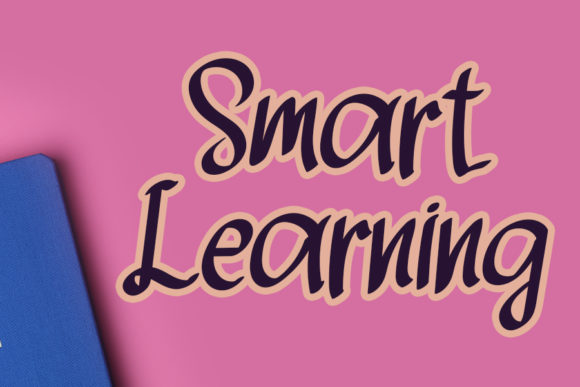
Introduction to Rellysha Font
Do you remember the moment when you stumbled upon the perfect font for your creative project? For many designers, that moment is what makes all the difference. It’s the spark that sets your imagination ablaze and propels you towards creating something truly special.
For those who are about to embark on a new design journey, we’re excited to introduce you to the stunning Rellysha Font. This casual and relaxed script font is sure to capture your heart with its beautiful and distinct style. Whether you’re crafting gorgeous wedding invitations, designing beautiful stationery art, or creating eye-catching social media posts, Rellysha Font is the perfect design resource to elevate your work.
What makes Rellysha Font so valuable to designers? Not only does it offer a high-quality design experience, but it also provides the flexibility to customize your projects with a transparent background, making it perfect for a variety of creative applications.
Key Features of Rellysha Font
- Unique, hand-drawn design perfect for creative projects requiring a touch of elegance and sophistication.
- Available in 5 font styles, including regular, italic, bold, bold italic, and outline, to suit various design needs.
- Perfect for designers seeking a high-quality, unique design resource for their creative projects, including branding, advertising, and packaging design.
Honest Review: Rellysha Font
As a designer, I’m always on the lookout for high-quality design resources to elevate my creative projects. The Rellysha Font caught my attention with its unique style and versatility. I was excited to dive in and see if it lived up to my expectations.
Here are some of the things that work well for me:
- ✨ The font is incredibly versatile, suitable for a wide range of creative projects, from branding to editorial design.
- ✨ The high-quality design ensures that the font looks crisp and clear, even when used on a transparent background.
- ⚠️ The font may not be suitable for use in small text sizes, as the letters can become difficult to read.
- ⚠️ The font’s unique style may not be to everyone’s taste, so it’s essential to use it thoughtfully in your design.
Overall, I’m impressed with the Rellysha Font. It’s a great addition to any designer’s toolkit, offering a unique and high-quality design resource for creative projects.
Rellysha Font Overview
Tips for Getting the Most Out of Rellysha Font
Use the Rellysha Font in conjunction with other design elements, such as images and graphics, to create a visually appealing design.
Experiment with different font sizes and styles to achieve the desired effect.
Combine the Rellysha Font with other free design resources to create a unique and eye-catching design.
Common Use Cases for Rellysha Font
The Rellysha Font is ideal for creative projects, such as:
– Infographics
– Brochures
– Business cards
– Website design